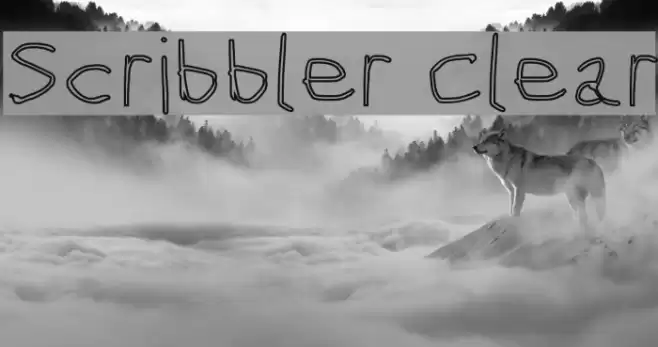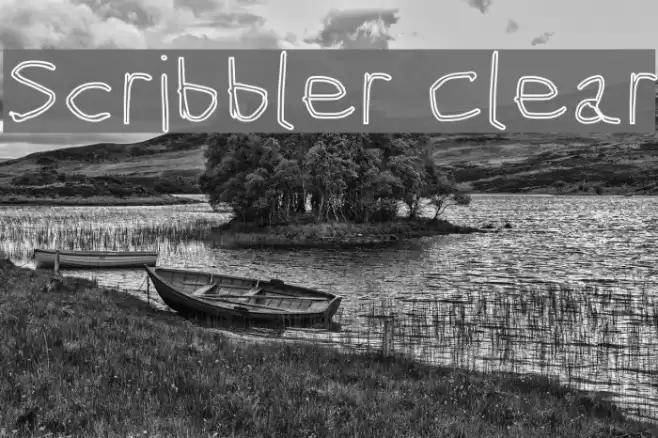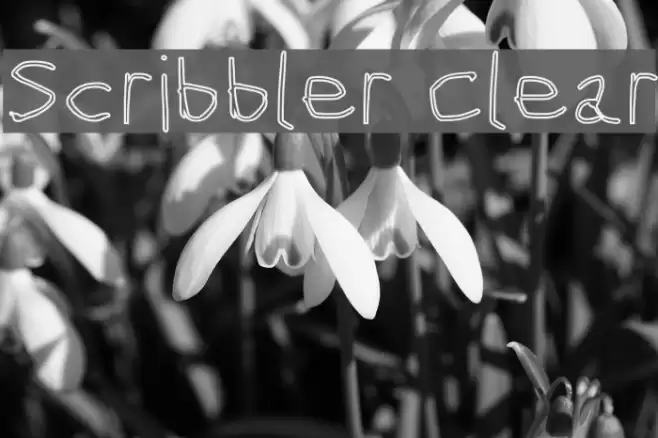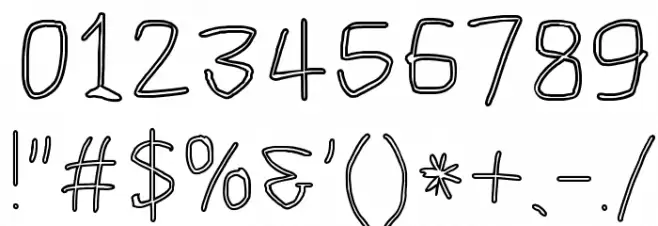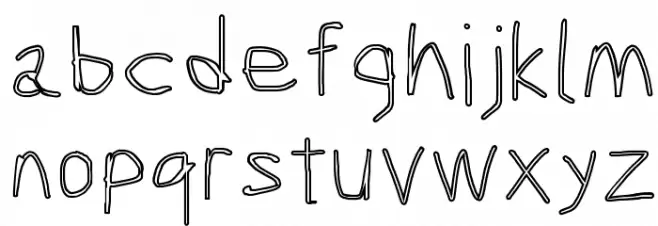
Scribbler Clear
This playful and informal font features a hand-drawn style with a casual, sketch-like appearance. The characters are slightly irregular, giving them a whimsical and approachable feel. Each letter is outlined with a consistent stroke width, maintaining a cohesive look across the alphabet. The font includes both uppercase and lowercase letters, numerals, and a variety of special characters. Its unique, artistic design makes it stand out, while still being legible and versatile for various applications. The font's overall aesthetic is reminiscent of doodles or notes jotted down in a notebook, making it perfect for creative projects that require a personal touch.
A playful, hand-drawn font with a casual, sketch-like appearance.
- Proposed Projects: Ideal for children's books, greeting cards, casual invitations, and creative branding projects.
- Overall Style: Decorative
- Use Case: Headlines, Logos, Informal Text